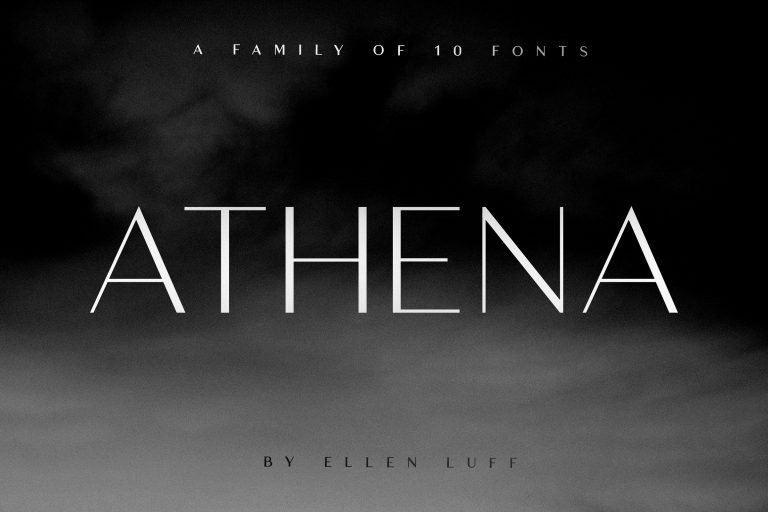
Athena Sans Serif Font
Hi designer! I am happy to introduce you to a family of 10 fonts. Introducing Athena Font! Athena designed by Ellen Luff. Athena is an elegant typeface of contrast. It offers a modern take of the old didoe genre, confidently playing with extremes of thick strokes and whisper thin curves, but removing the serifs, planting it firmly in modern day design. Its a careful collaboration between beauty and function.